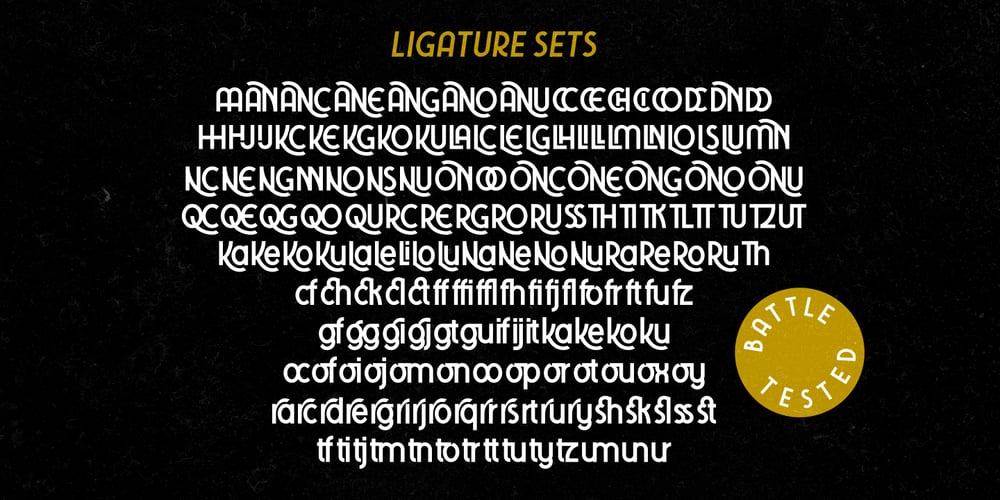
Tawakkal Sans
Tawakkal Sans font
Tawakkal Sans Font Family was designed by Fahrizal Tawakkal and published by Fontdation. Tawakkal Sans contains 2 styles and family package options. New month means new font. Let us introduce our latest (another) sans serif; Tawakkal Sans. This font is a mix of modern and classic style, its cleanliness and irregular shapes represent the future, while its elegant curve mimicking old style typography. Tawakkal Sans is highly versatile, you can use it on many designing fields, ex: headline, editorial, quote-writing, tees/poster design, logo, etc. Packed with lots of glyphs (including OpenType chars), this font is a must have weapon on your designing arsenal. Enjoy!